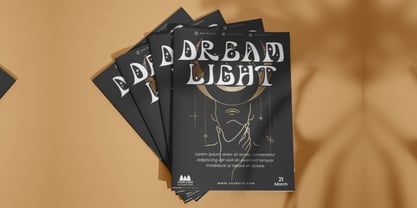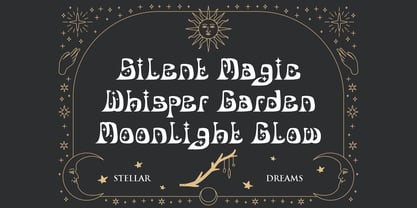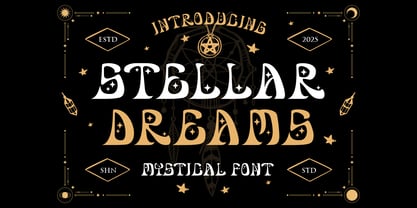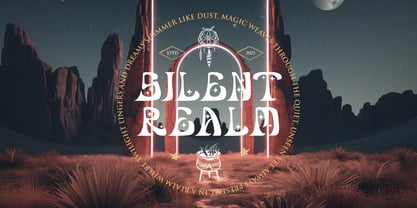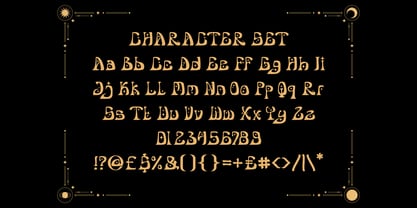
Stellar Dreams
Die Schriftfamilie Stellar Dreams wurde von Yesie Erma Yunita entworfen und von Shanaf veröffentlicht. Stellar Dreams enthält 1 Stile. Mehr über diese Familie
Stellar Dreams is a mystical display font that captures the enchantment of celestial beauty and dreamlike wonder. Each character is meticulously crafted with unique, flowing shapes, adorned by whimsical stars and curves that mimic stardust trails and moonlight glow. The font fuses retro serif nuances with a magical twist, creating an aesthetic perfect for fantasy-driven projects. Its playful yet elegant character set brings a spellbinding charm, ideal for design work requiring a touch of the ethereal. Letterforms are slightly irregular and organic, enhancing the dreamlike tone while ensuring excellent legibility and visual rhythm.
From magical posters to tarot-style branding, Stellar Dreams was designed for designers who crave imaginative expression. It's perfect for logos, packaging, greeting cards, book covers, event invitations, and mystical-themed campaigns. Whether used in gold foil on black or full-color spreads, this font commands attention while telling a story. With both uppercase and lowercase sets, numerals, and magical symbols, Stellar Dreams makes every composition feel like a portal to another world.